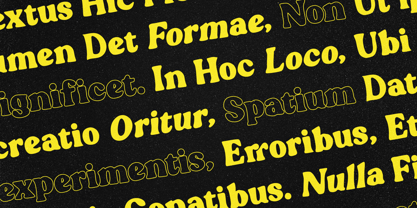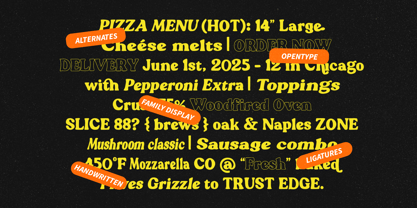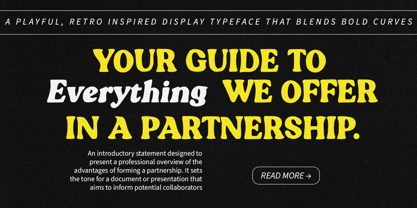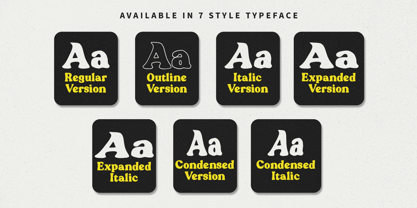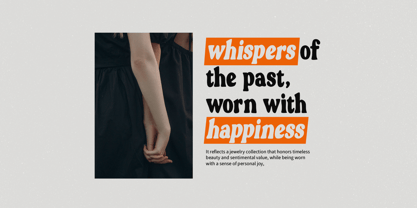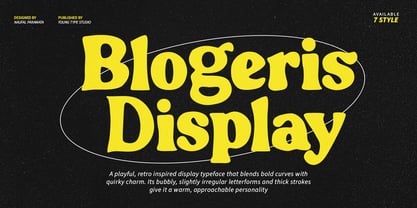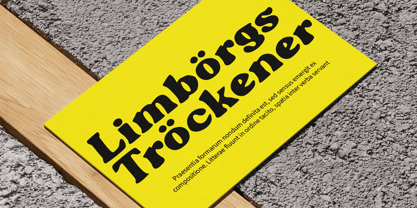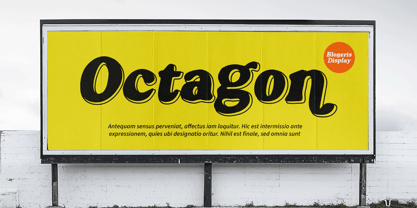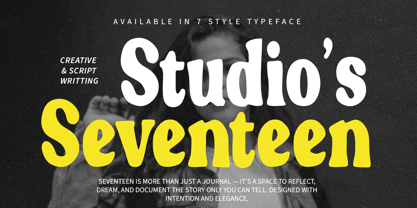
Blogeris Display
by Youngtype
The Blogeris Display Font Family was designed by Naufal Paramata and published by Youngtype. Blogeris Display contains 7 styles and family package options.
Blogeris Display is a playful, retro-inspired display typeface that combines bold curves with a quirky charm. Its letterforms are bubbly and slightly irregular, giving the font a handcrafted, organic feel that adds warmth and personality to any design.
Designed with thick strokes and a unique rhythm, Blogeris Display stands out in headlines, posters, branding, and other creative projects. The font’s friendly and approachable appearance makes it ideal for designs that aim to be fun, expressive, and visually engaging.
Contains full set :
• Uppercase
• Lowercase
• Ligatures
• Alternates
• Punctuation
• number
• multilingual support.